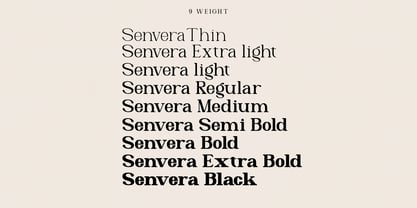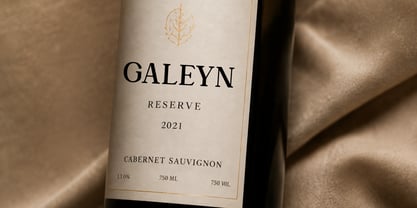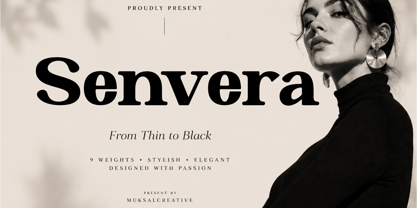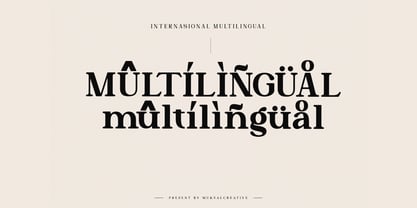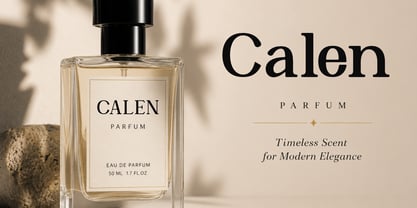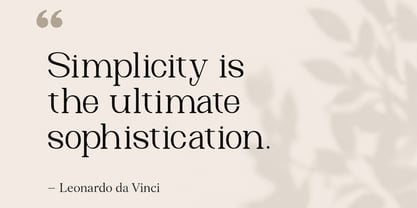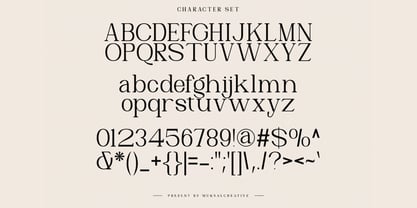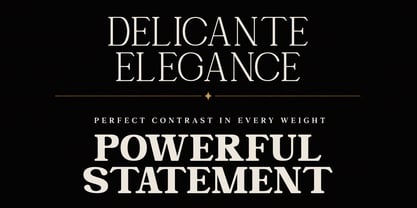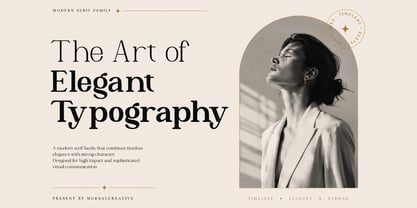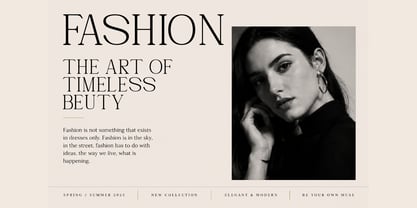
Senvera
The Senvera Font Family was designed by Muksalmina and published by Muksal Creatives. Senvera contains 9 styles and family package options. More about this family
Senvera is a sophisticated modern serif family crafted for elegant branding, editorial design, and luxury visual communication. Inspired by contemporary fashion typography and timeless editorial aesthetics, Senvera combines delicate thin styles with powerful bold weights while maintaining balance, refinement, and consistency across the entire family.
Designed with graceful proportions, smooth curves, and refined serif details, Senvera delivers a premium typographic experience suitable for both minimalist layouts and expressive display compositions. From luxury magazines and cosmetic branding to packaging and modern logos, Senvera brings timeless sophistication into every project.
The family includes a complete range of weights from Thin to Black, allowing designers to create beautiful hierarchy and dramatic contrast with ease. Each weight is carefully developed to preserve readability, elegance, and strong visual presence.
Senvera is perfect for creatives who seek a serif typeface that feels modern, stylish, clean, and confidently luxurious.